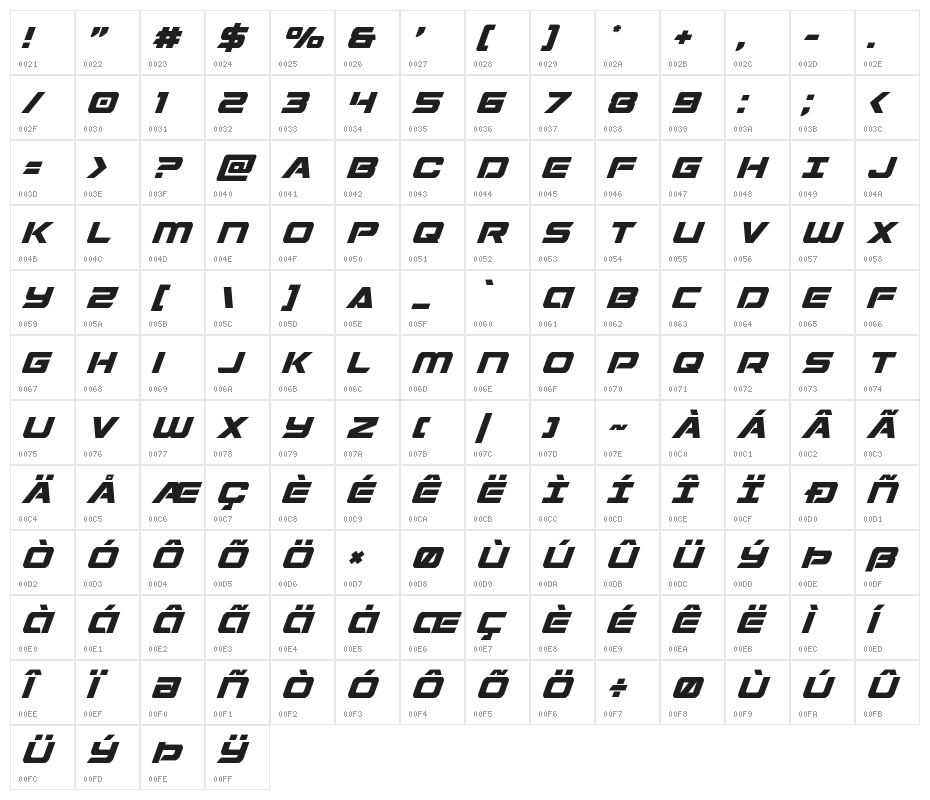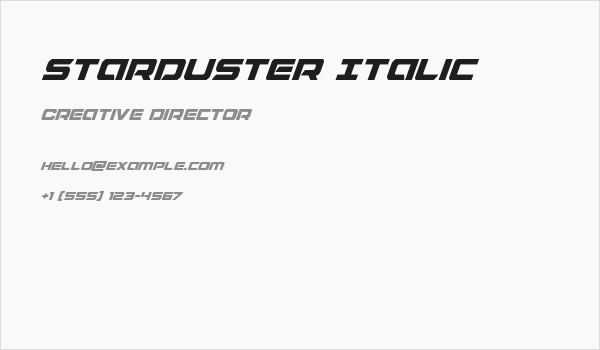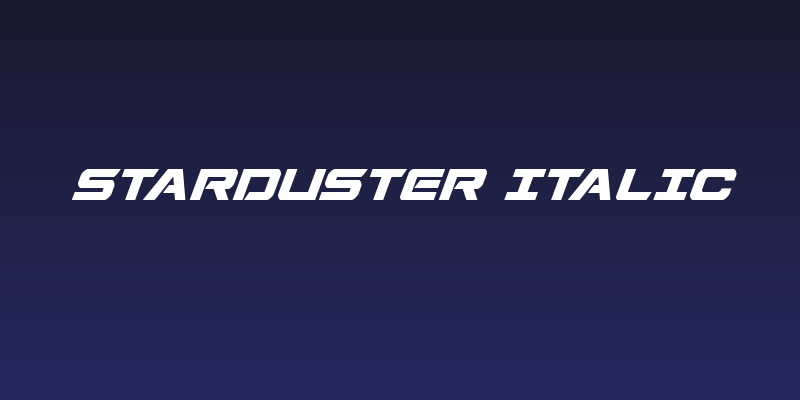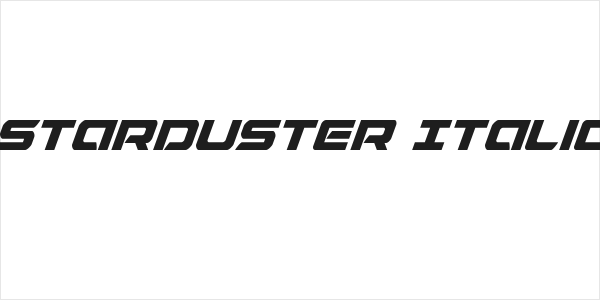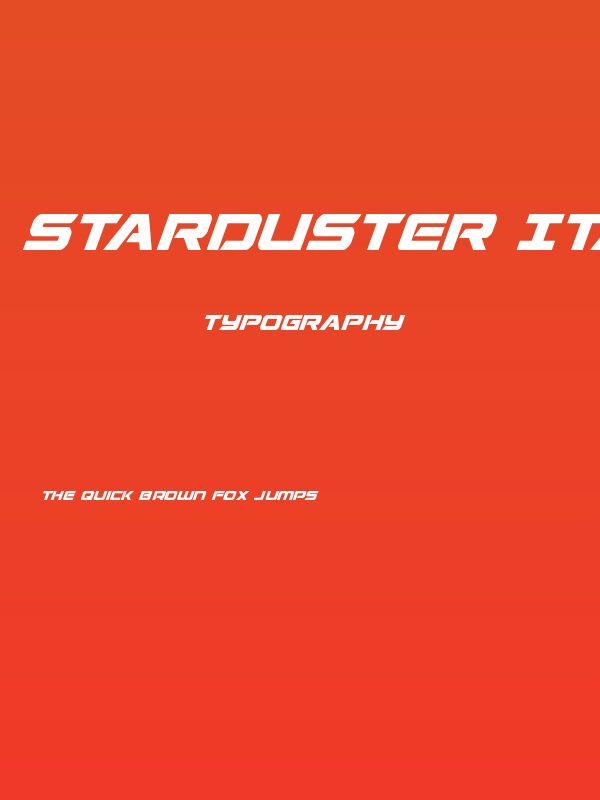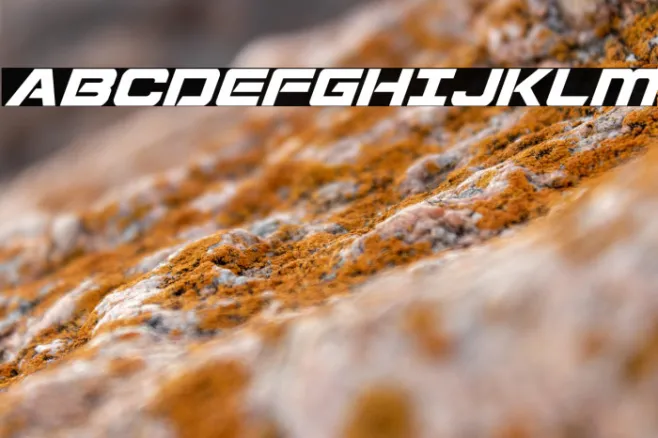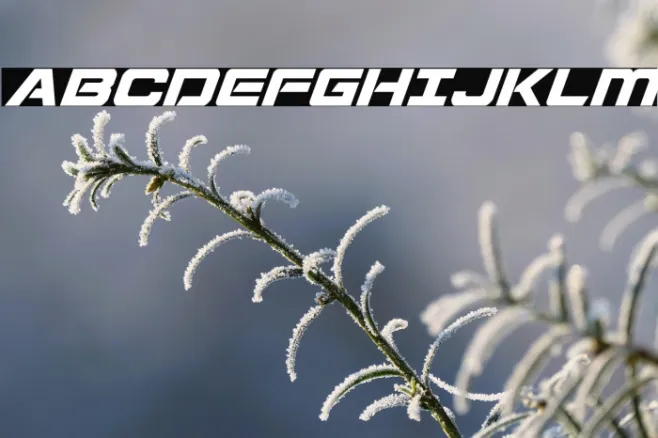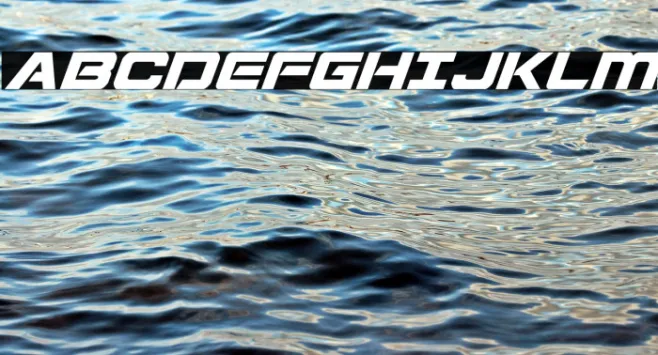
Starduster Italic Font
Starduster Italic Description
This font features a bold and dynamic italic style, characterized by its sharp angles and futuristic appearance. The uppercase and lowercase letters maintain a consistent slant, giving a sense of motion and speed. The numerals and special characters follow the same design ethos, ensuring uniformity across all glyphs. The overall aesthetic is modern and sleek, with a distinct emphasis on geometric shapes and clean lines. The font's boldness is evident in its thick strokes, which are consistent throughout, providing a strong visual impact. The character spacing is tight, enhancing the compact and cohesive look of the text.
| Proposed Projects | Ideal for sci-fi themed projects, technology branding, video game titles, and modern advertising campaigns. |